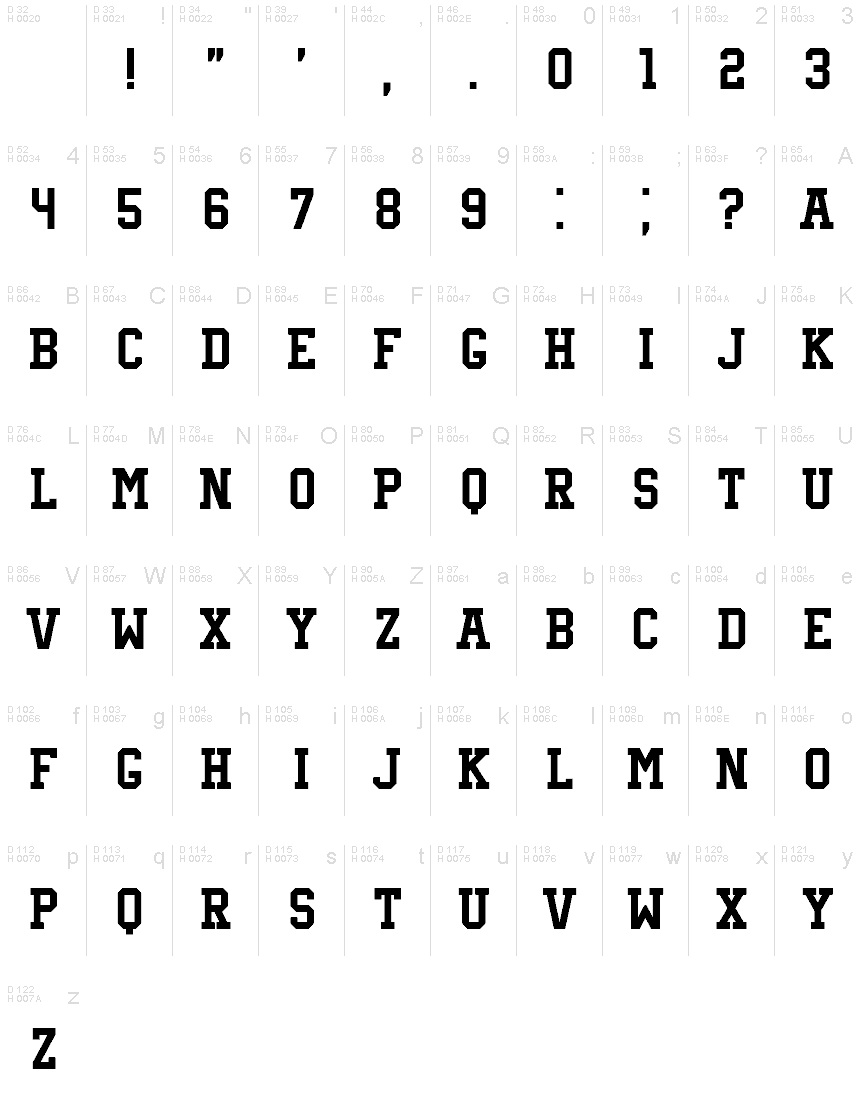
Catch font by Vladimir Nikolic is a display font with an old-school style that exudes strength and modernity. Its geometric and impactful design captures a sense of both industrial heritage and futuristic thinking. The robust aesthetic skillfully blends historic references from early 20th-century industrial design with a contemporary appeal. Perfect for engaging the audience, Catch communicates authority and innovation through its remarkable visual characteristics.